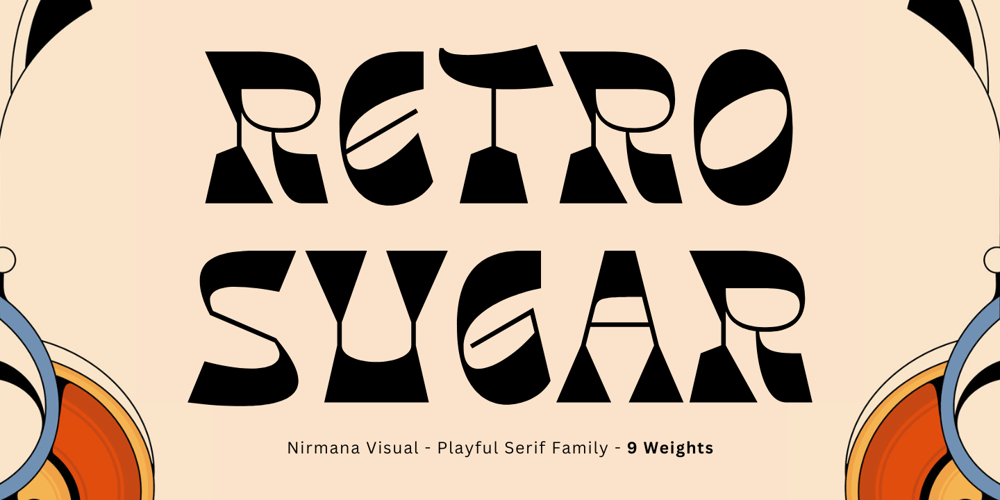
Retro Sugar Font Family was designed by Sigit Dwipa and published by Nirmana Visual. Retro Sugar contains 9 styles and family package options. Retro Sugar Unique& playful serif family with 9 WeightsRetro Sugar offers beautiful typographic harmony for a diversity of design projects, including logos & branding, social media posts, advertisements & product designs.